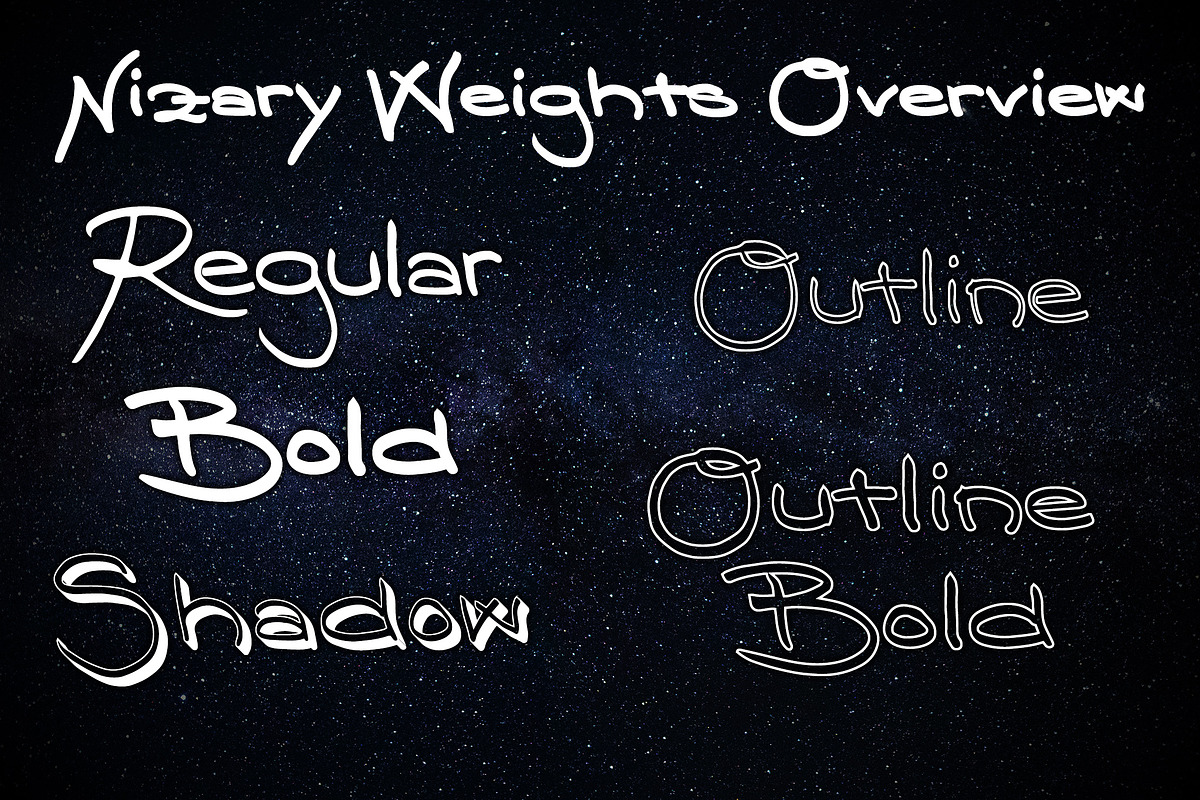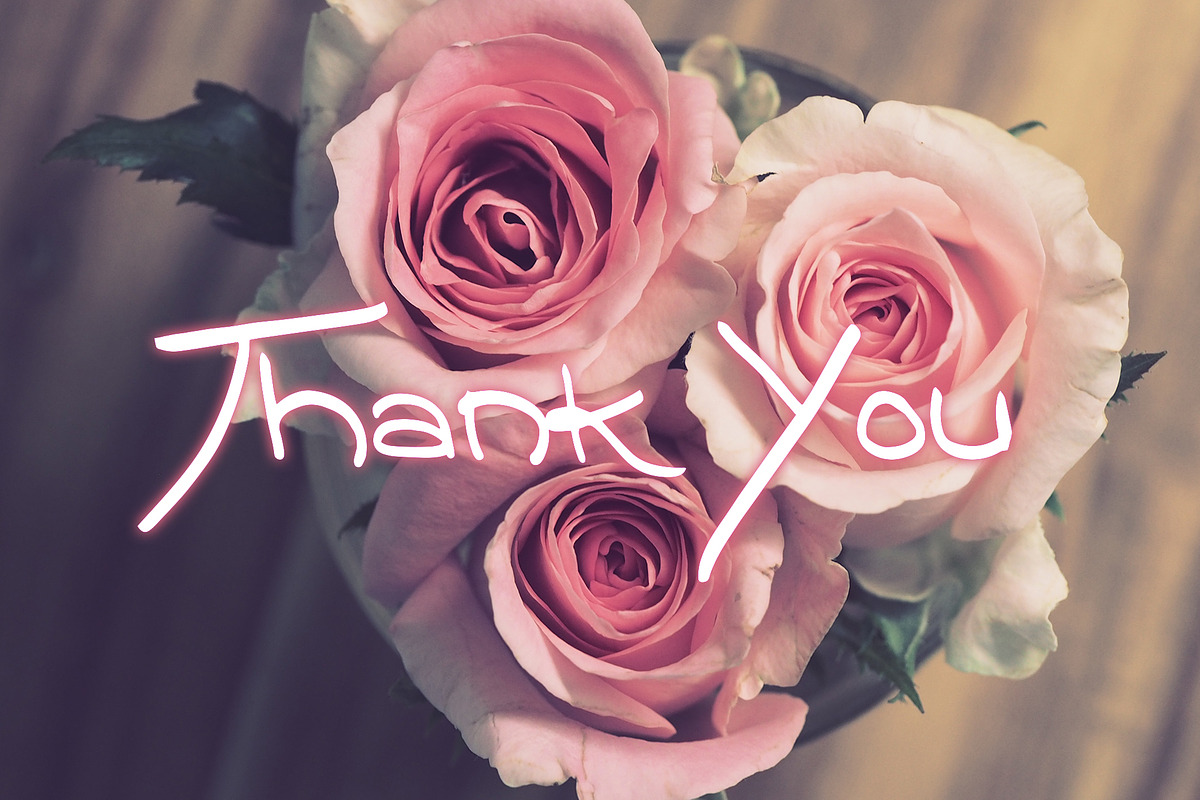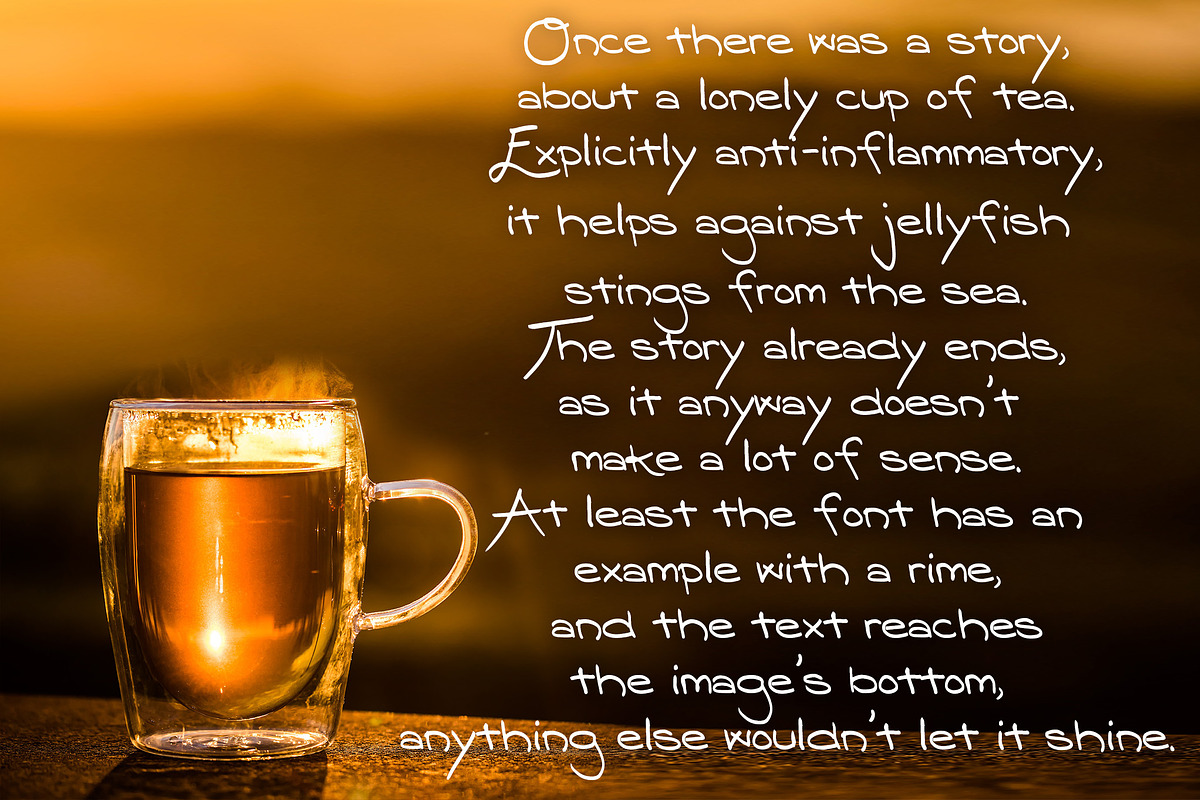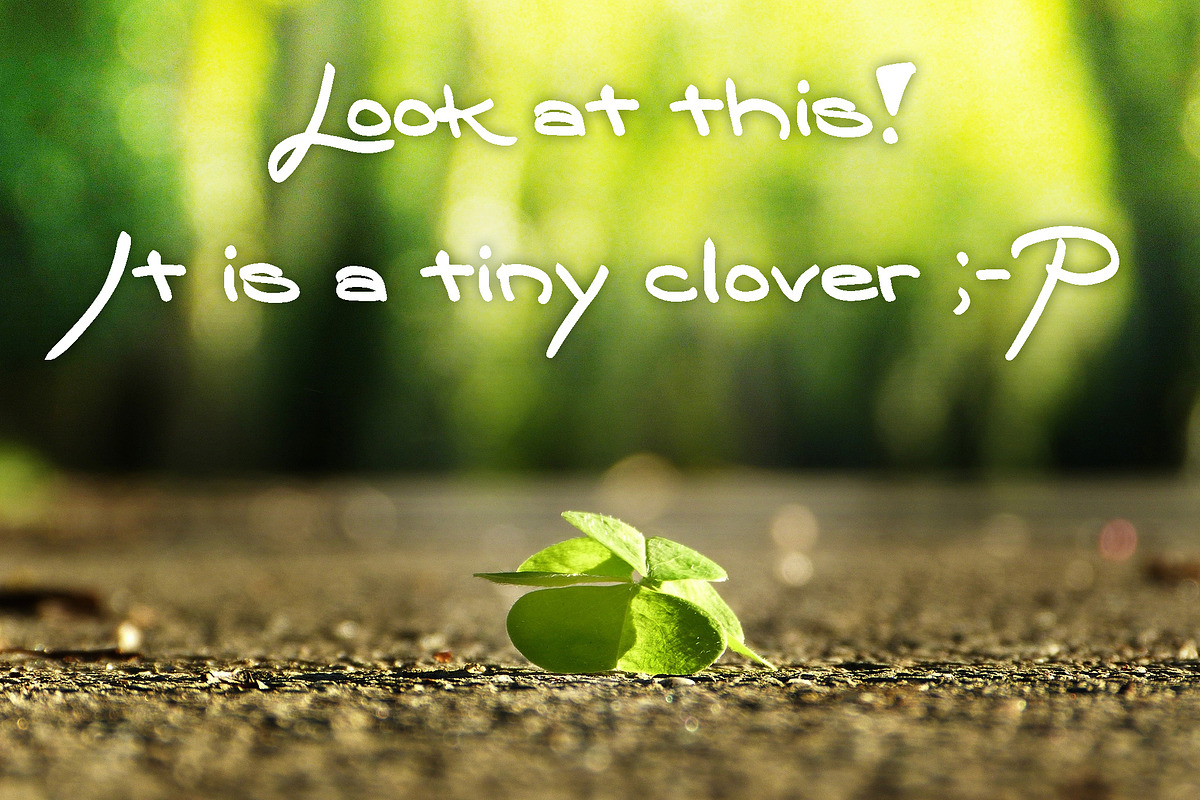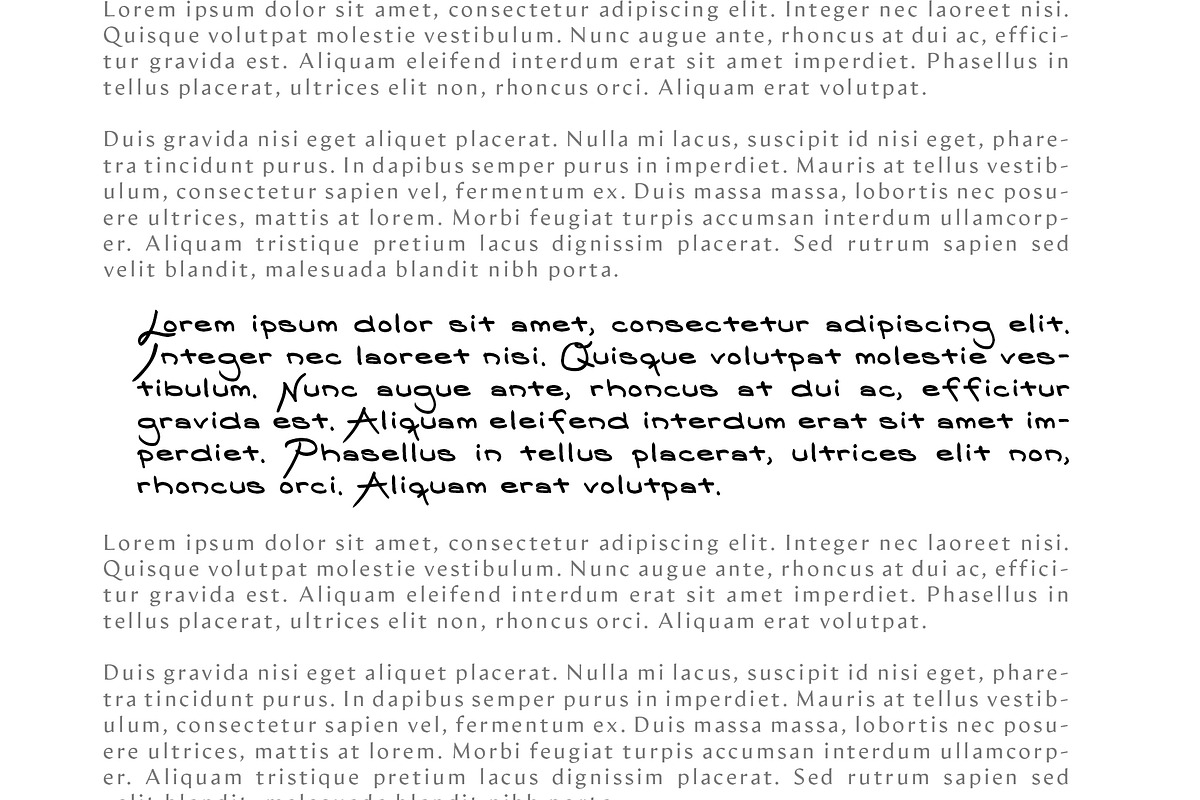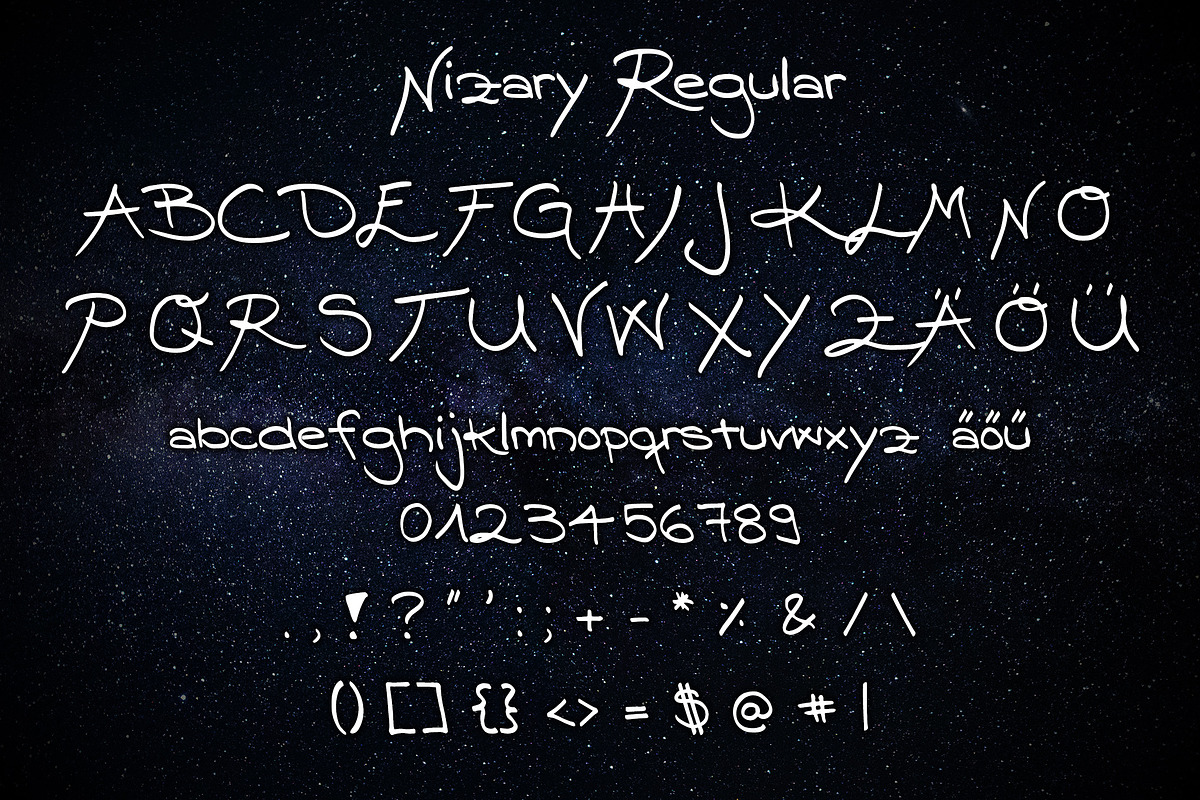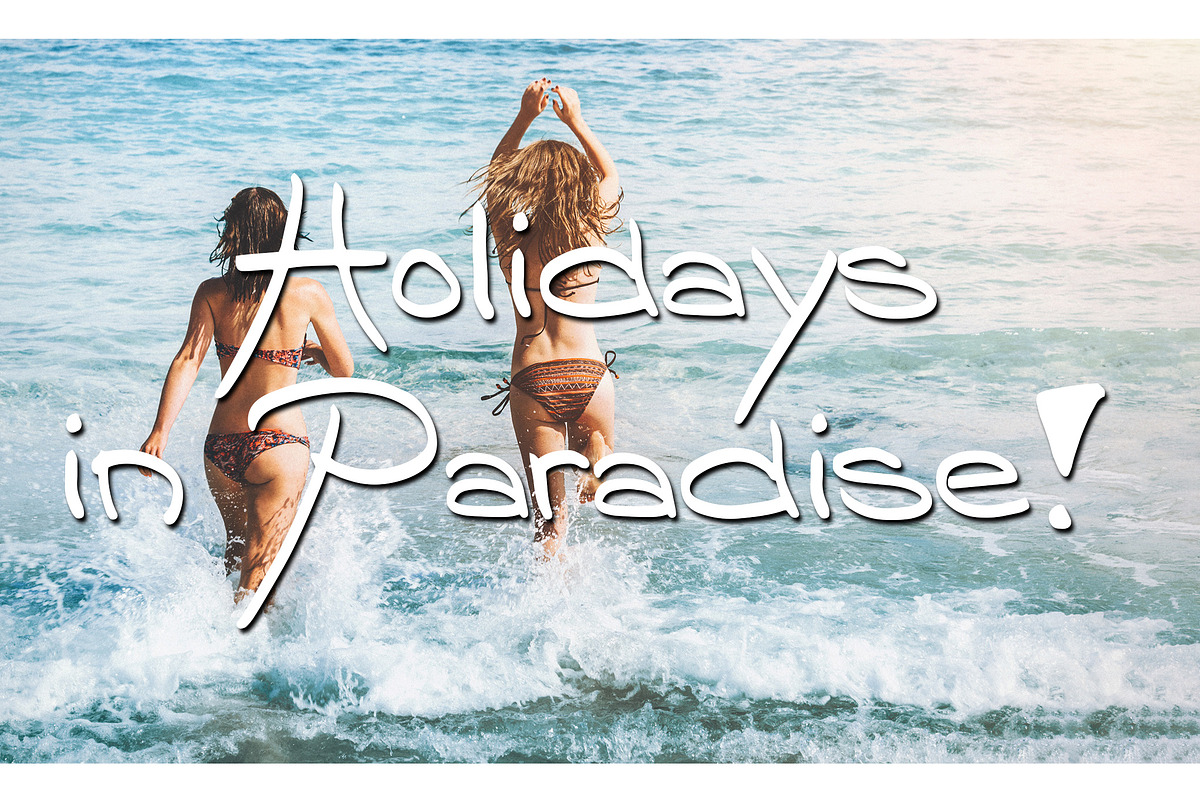
Nizary Natural Font
===== The romantic Story behind this Font =====
As I wanted to create a new font, I was looking for a good base to start. A good friend came to my mind, as I knew that she has some really beautiful handwriting. She got really excited about the idea creating a computer font out of her handwriting and was ready to start on the project immediately. I gave her some instructions what she should write, and some days later I got some awesome letters back (she told me she started like 5 times over :D ).
This is now the product of our combined efforts. The regular weight is her original handwriting, all others are derivatives.
The font contains the following alphabet (see sample images for details):
Uppercase letters A-Z
Lowercase letters a-z
Other special characters
===== Usage Examples =====
Use wherever you need a female, girls, or a woman's handwriting
Product presentations for perfumes, makeup and everything related to manicure and pedicure
Invitations for parties
Use as playful headers in documents, booklets and books
As emphasis for quotes
Thanks to that I was able to create this nice font, that has a touch of a natural and calm flow.